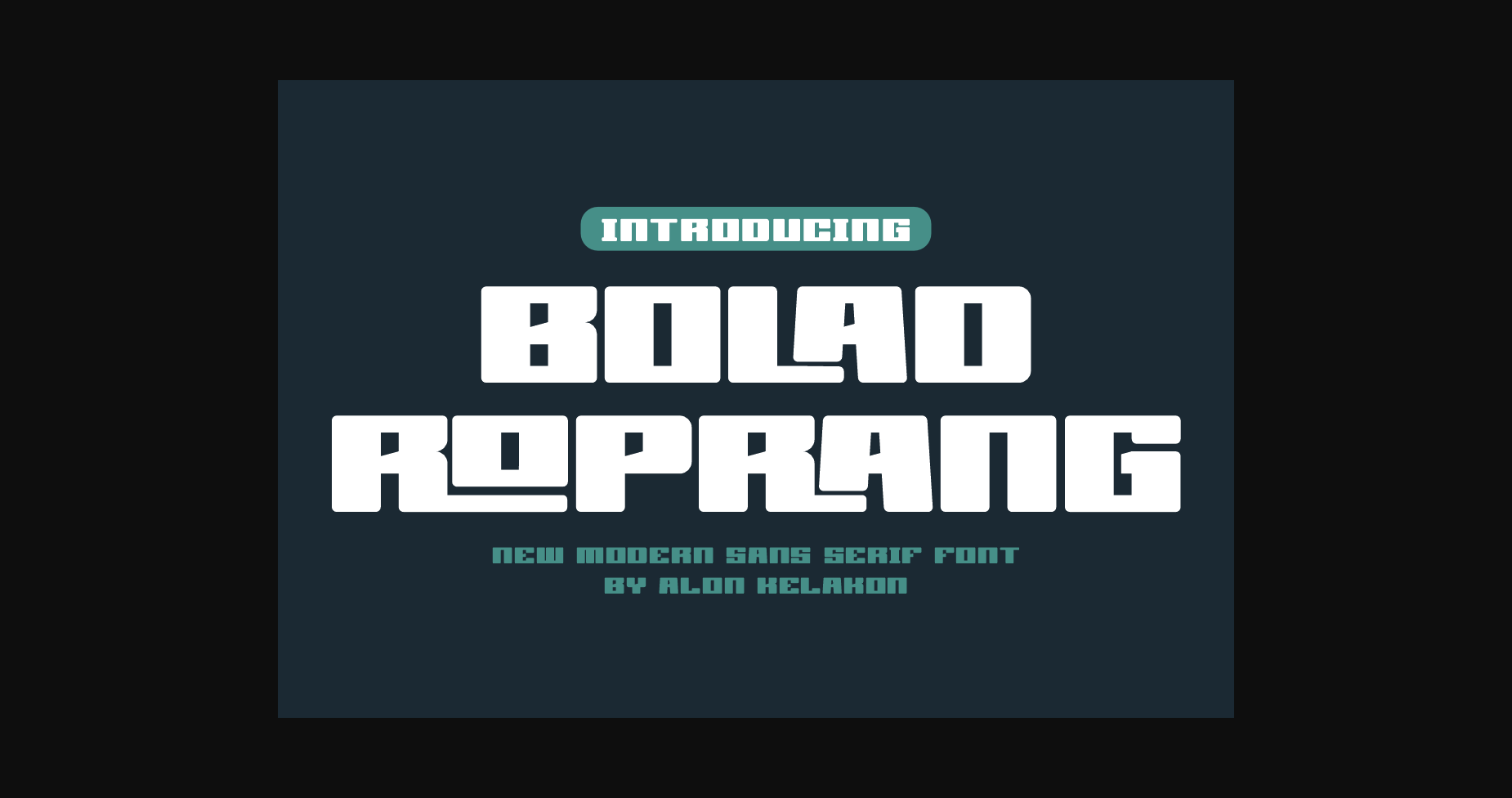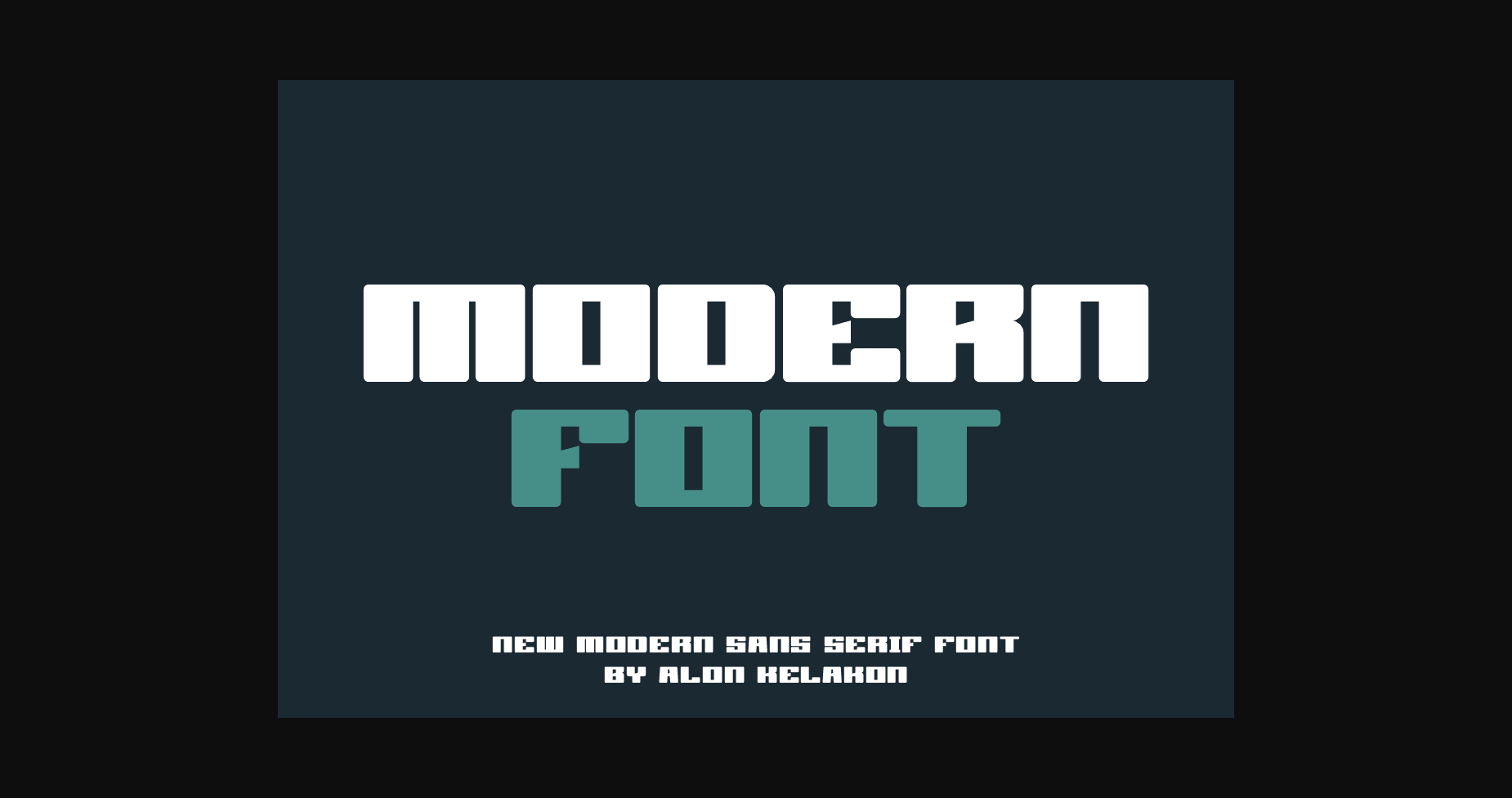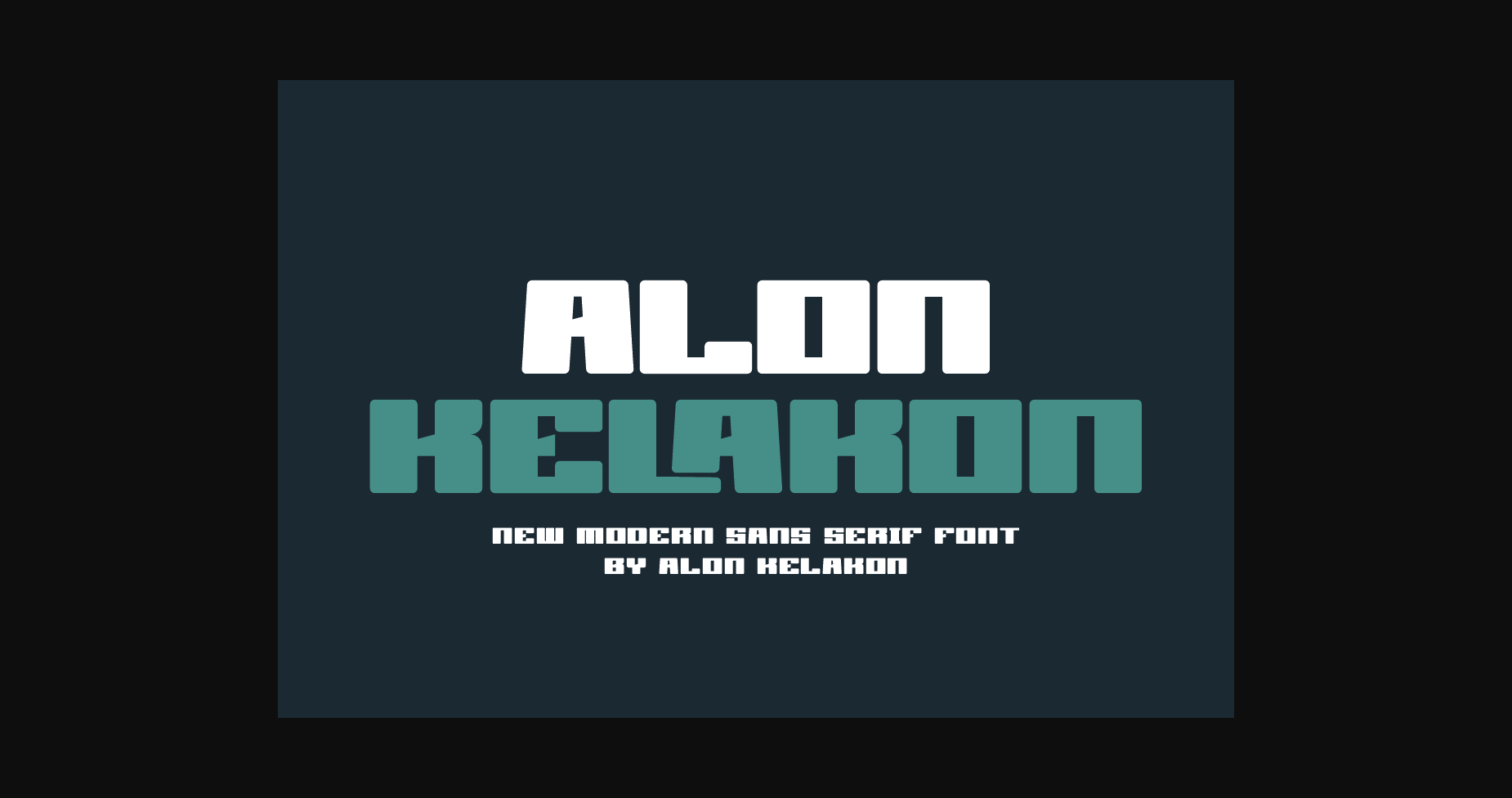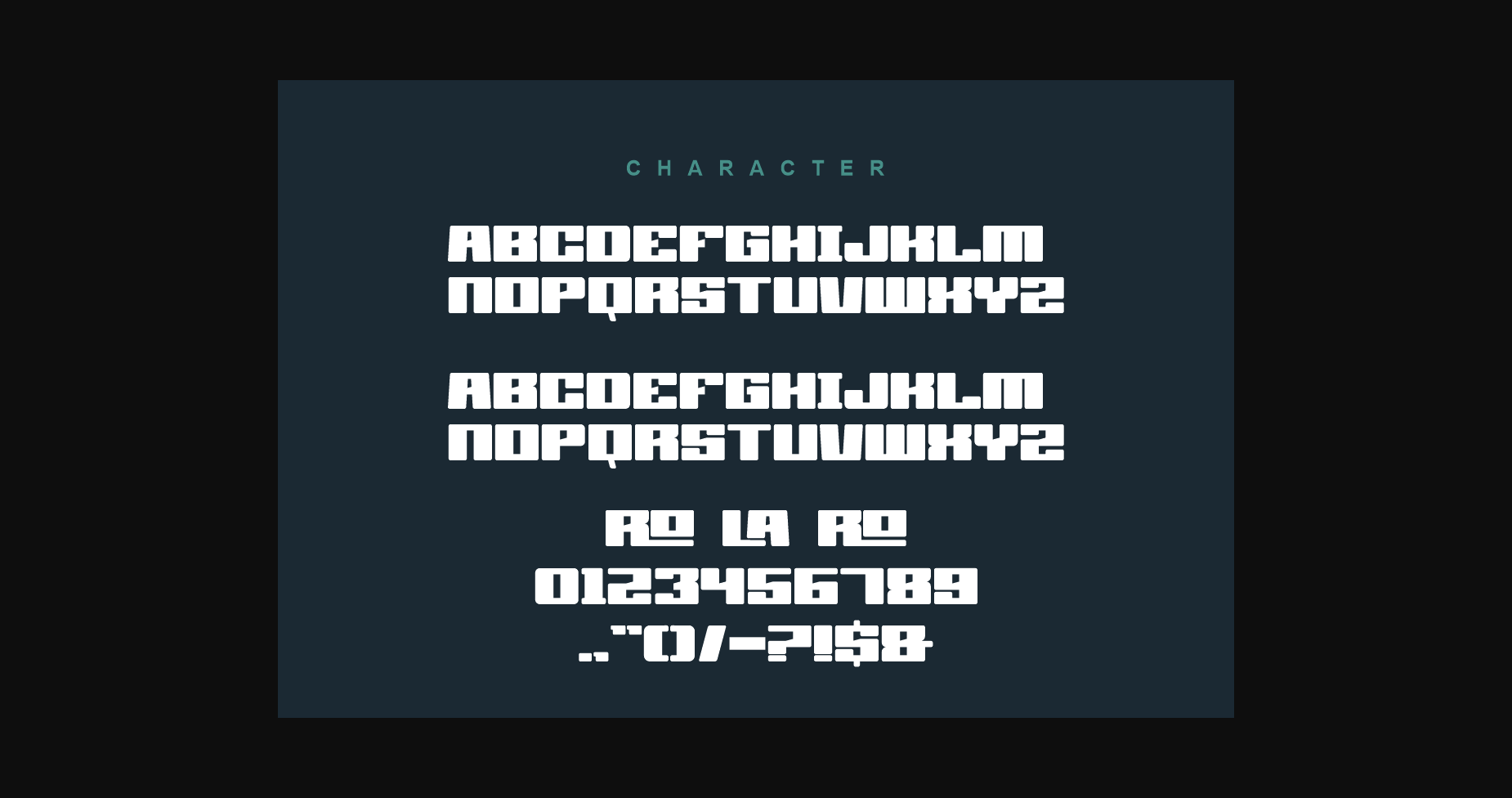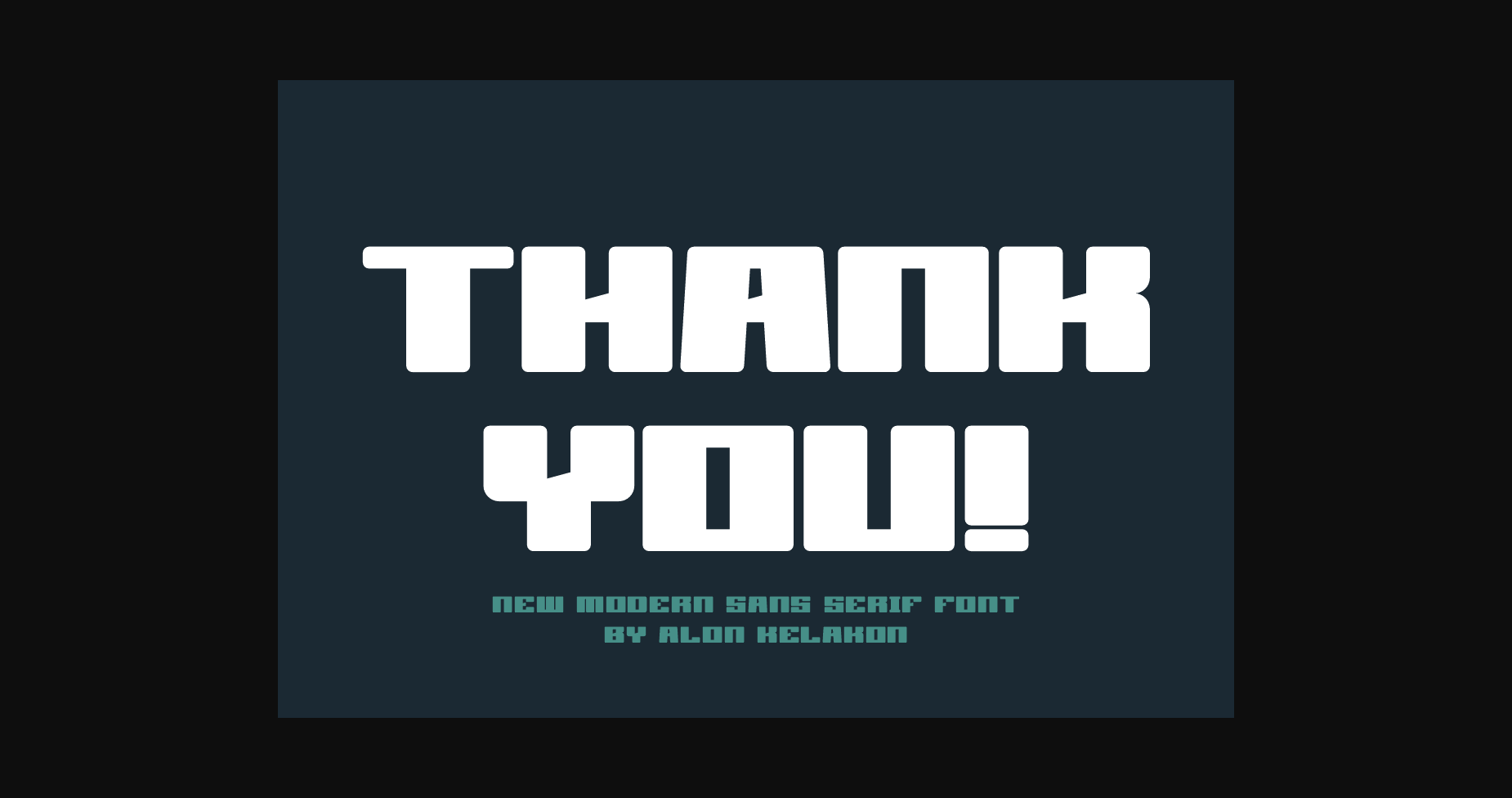
About Bolad Roprang Font
Bolad Roprang is a unique sans serif font. Ready to use for your design like labeling, clothing, movie scenes, poster, movie title, gigs, album covers, logos, and much more.